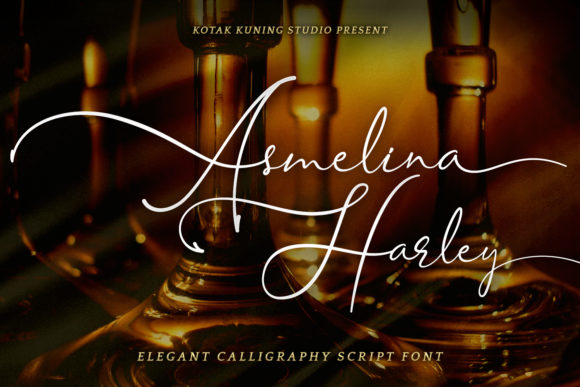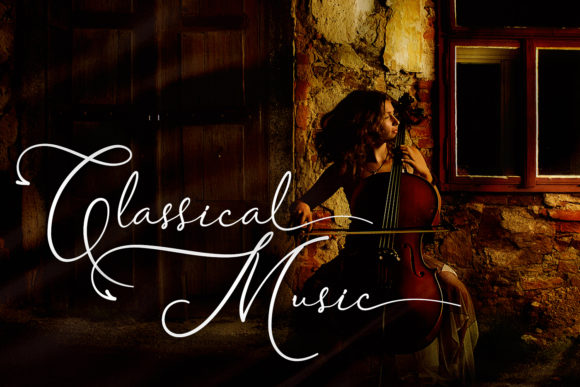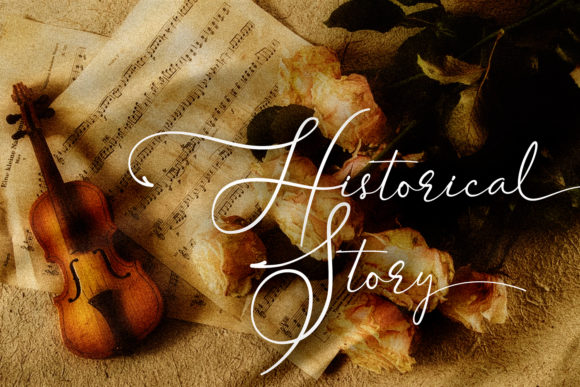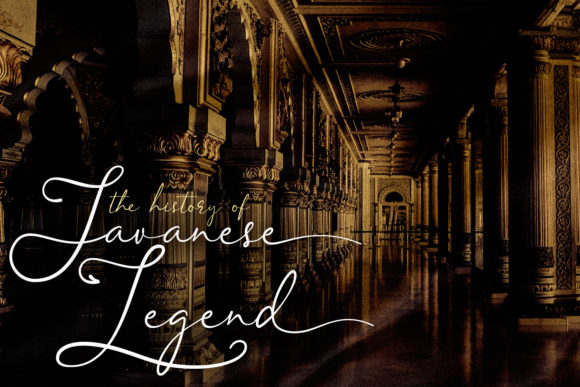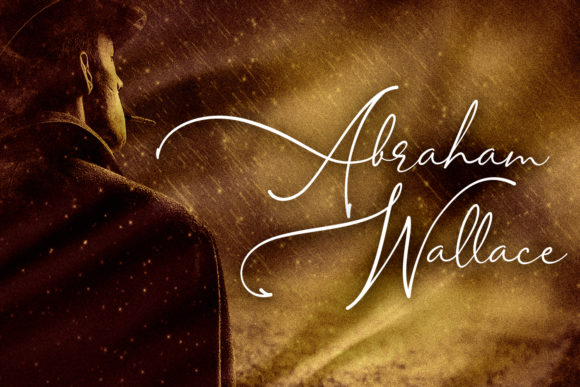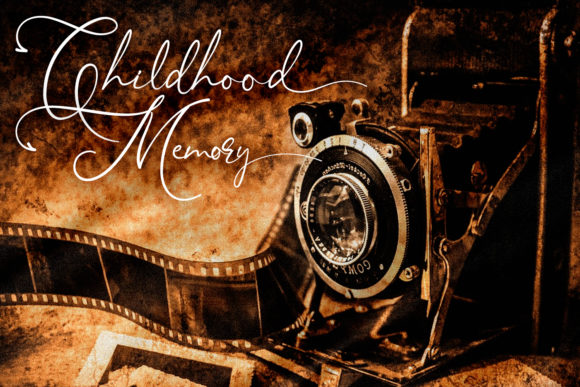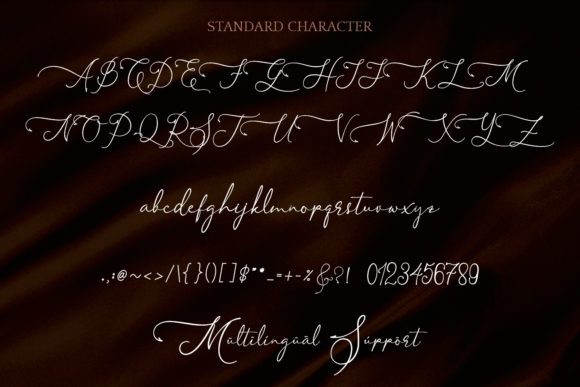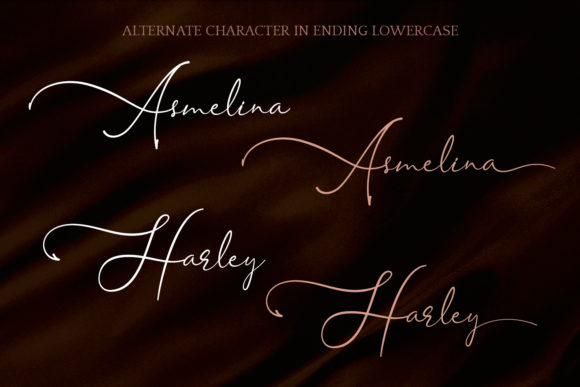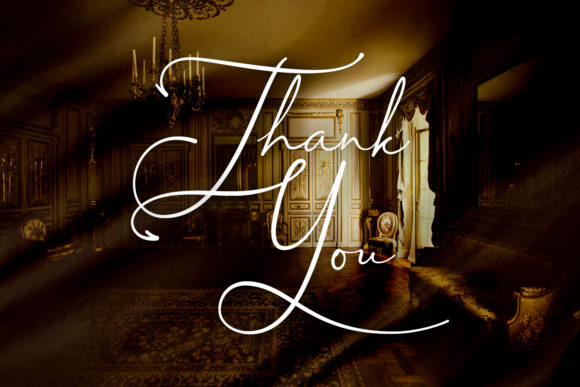
HomeScript FontsAsmelina Harley Font Script Fonts Asmelina Harley Font FacebookXPinterestWhatsApp Asmelina Harley Font Poster 2 Asmelina Harley Font Poster 3 Asmelina Harley Font Poster 4 Asmelina Harley Font Poster 5 Asmelina Harley Font Poster 6 Asmelina Harley Font Poster 7 Asmelina Harley Font Poster 8 Asmelina Harley Font Poster 9 About Asmelina Harley Font Asmelina Harley is a stunning handwritten font with fantastic swashes. Get inspired by its romantic flair. DOWNLOAD NOW People also explored Artitude Font Funkotronic Rafaela Monogram Font Winter Font Beauthy Flower Font Christmas Time Font Black Signature Font Thalib Font Writing Creative 339 0 TagsAsmelina Harley Font Previous articleAnggita FontNext articleBelandia Font LEAVE A REPLY Cancel reply Comment: Please enter your comment! Name:* Please enter your name here Email:* You have entered an incorrect email address! Please enter your email address here Website: Save my name, email, and website in this browser for the next time I comment. Personal Use Free Astagina Signature Personal Use Free Read more about this font Boldace Personal Use Free Read more about this font Madison Script Personal Use Free Read more about this font Fakedes Personal Use Free Read more about this font BLOG Best Fonts for YouTube Videos: Make Your Thumbnails Stand Out Best Fonts for YouTube Videos: Make Your Thumbnails Stand Out Choosing the right font can make a massive difference in how your YouTube videos perform.... Exploring Font Trends Top 7 Google Fonts Alternatives for Faster and Privacy-Friendly Web Design (2025) The 10 Best Handwriting Fonts to Add Personality to Your Designs